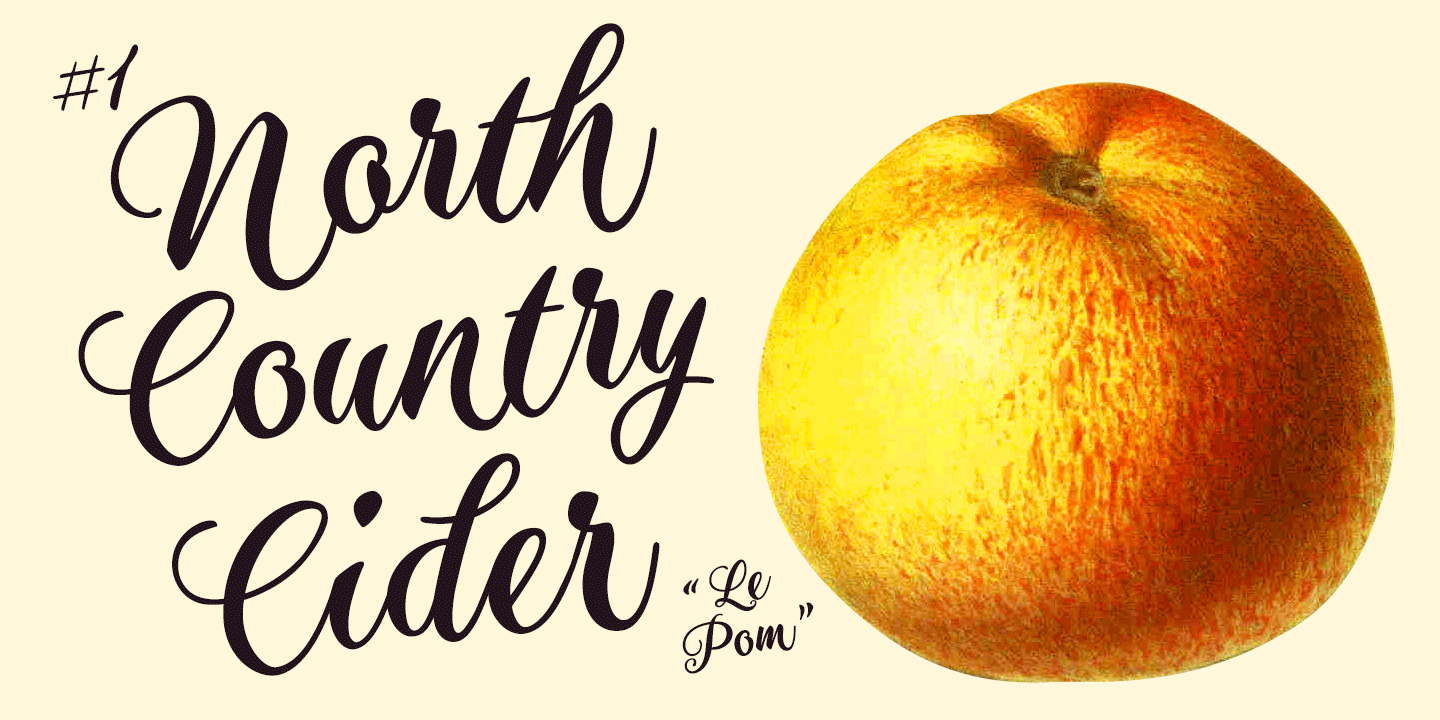
Aster Script
Aster Script is a formal script with a classic, calligraphic feel and a smooth connected rhythm. Its cursive letterforms create an elegant, feminine impression that feels polished without becoming stiff, making it a strong choice when you want typography with grace and personality.
With its flowing strokes and decorative character, this single-style design works especially well for invitations, branding, packaging, beauty-focused projects, and other display settings that benefit from a sophisticated handwritten look. If you’re after a script that reads refined, expressive, and distinctly formal, this one offers a focused solution.